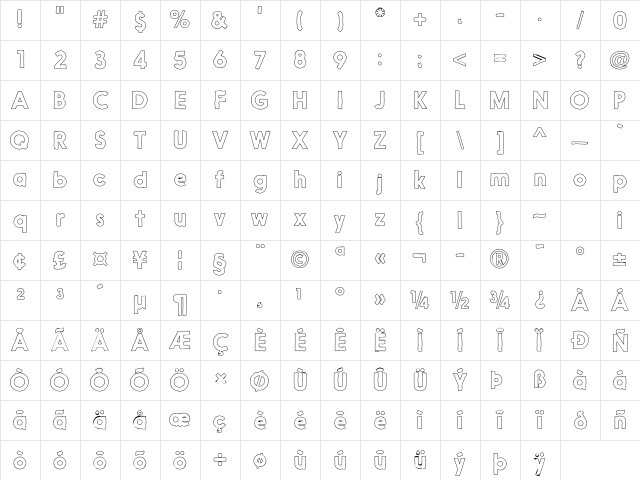
Nanami HM Outline Bold
Foundry: Thinkdust
Designer: Alex Haigh
Design Context for Nanami HM Outline
Nanami HM Outline is built around its visual character rather than neutral utility - its distinctive forms are designed to make an impression at display sizes. Its bold stroke weight gives it real presence on the page.
Font Pairing: Pair with a clean neutral sans-serif for body copy to let Nanami HM Outline's character lead without overwhelming the composition.
Pro Tip: Use Nanami HM Outline exclusively at display sizes - it was designed to be seen, not read at length. Let a neutral companion handle body copy.